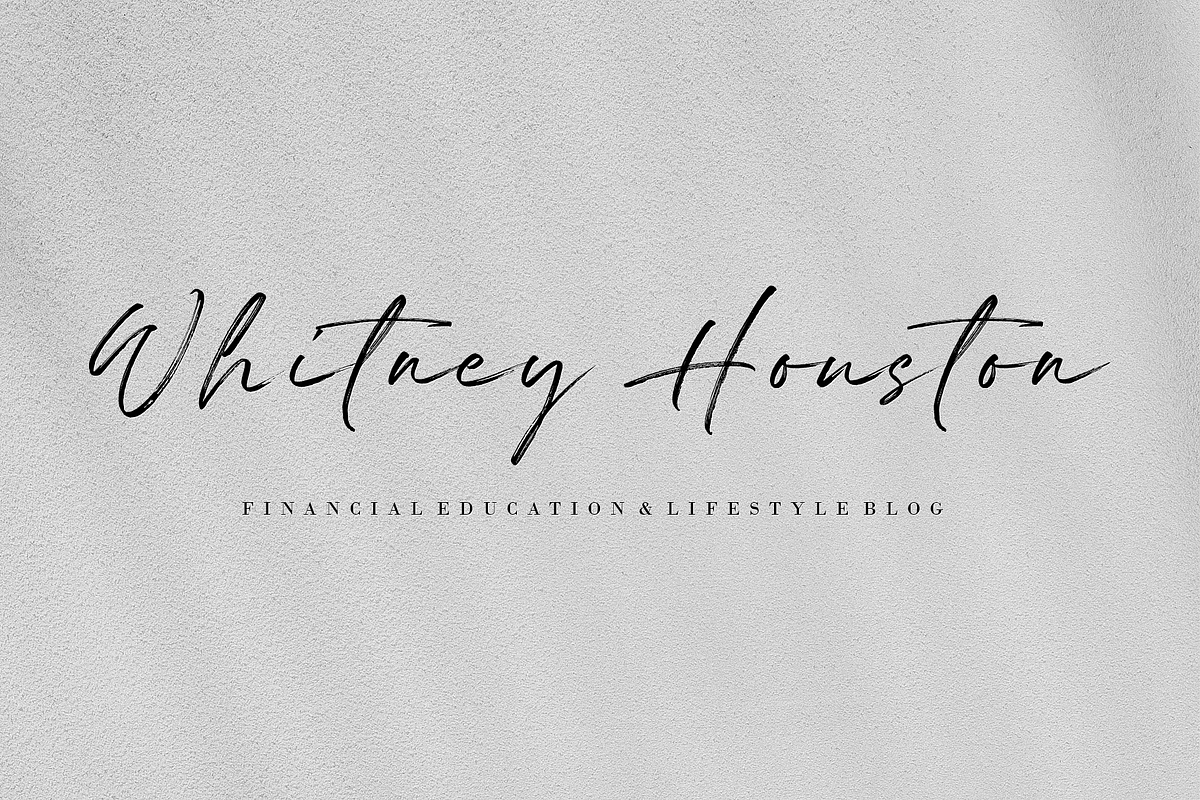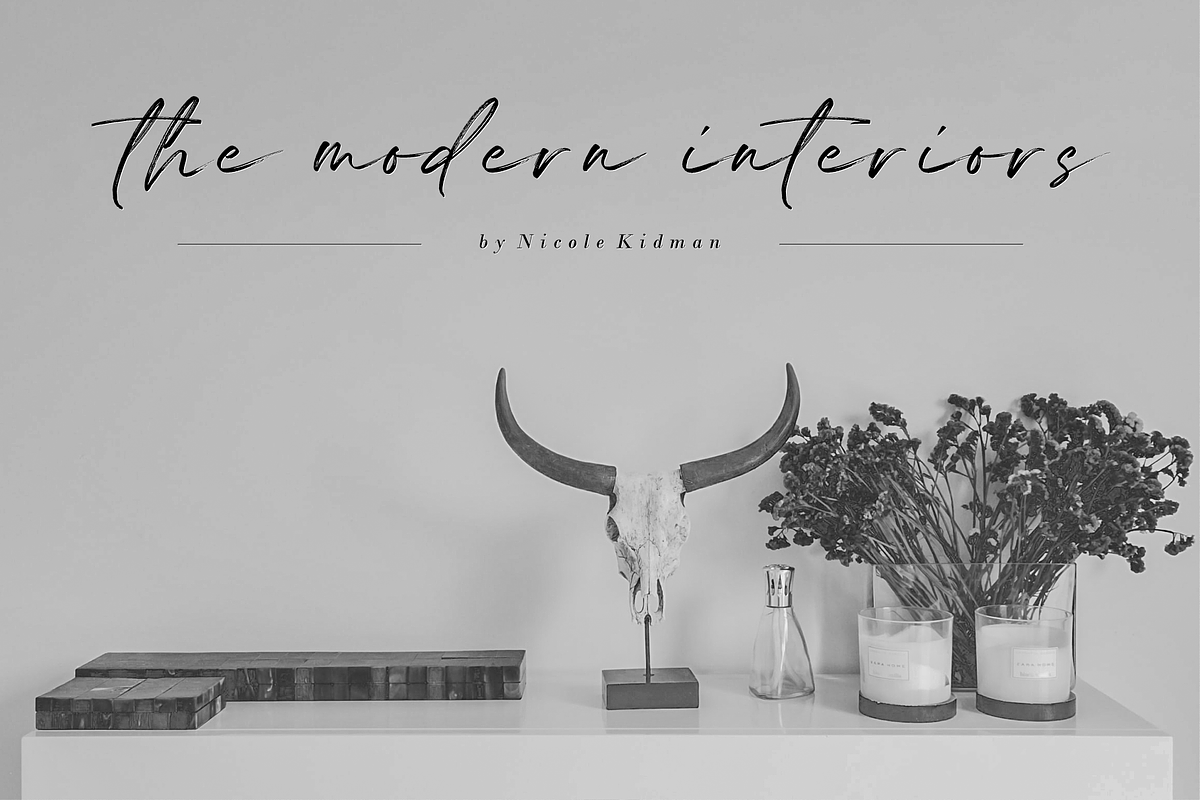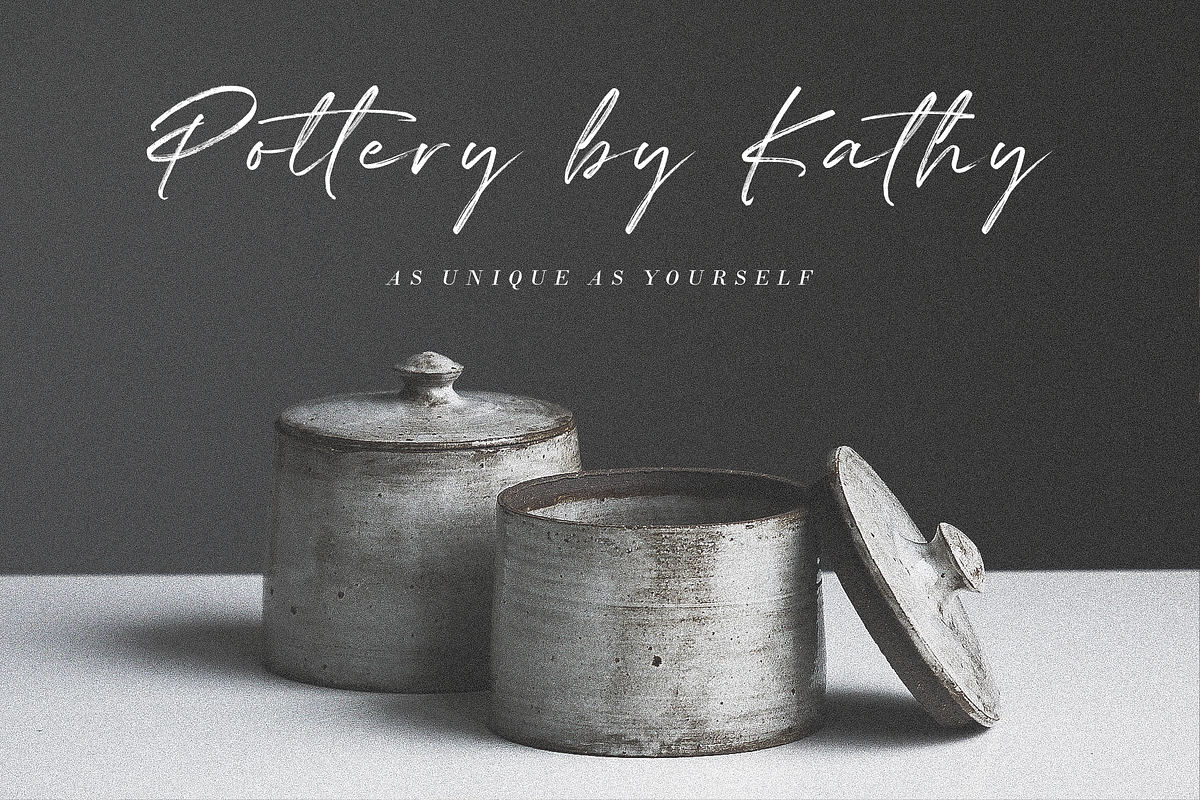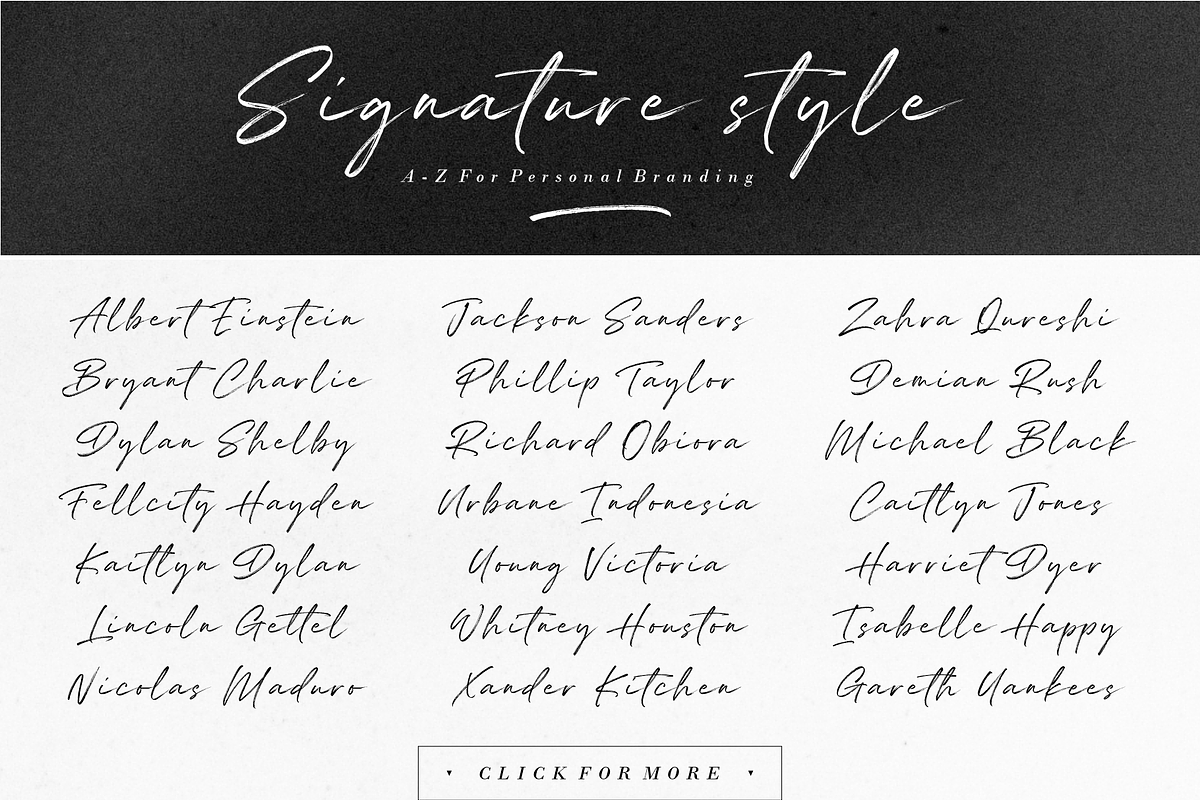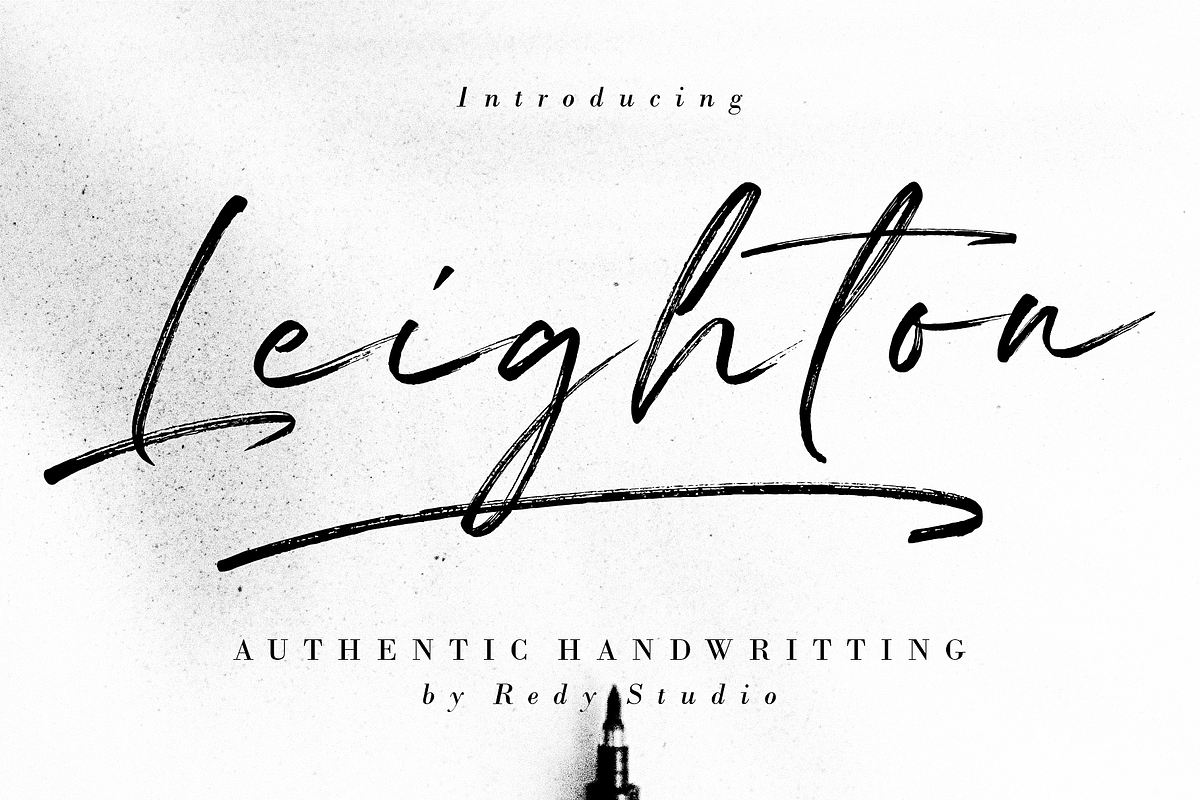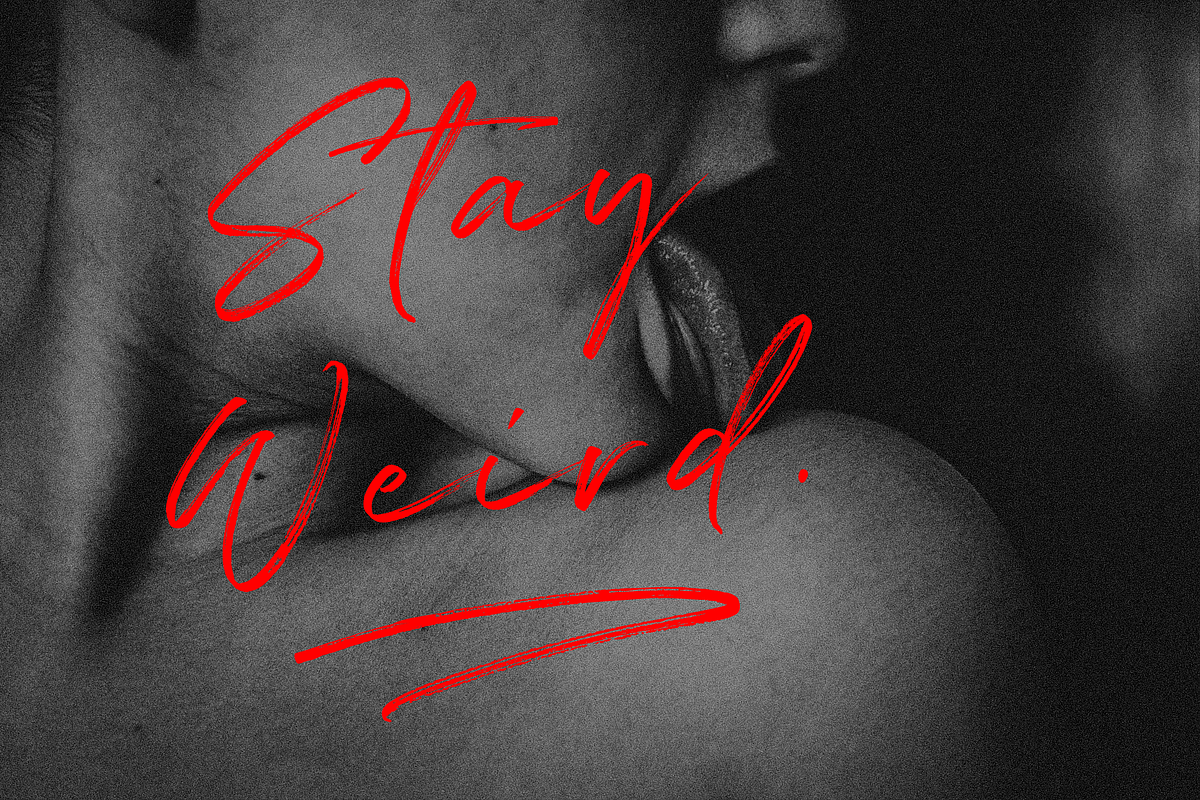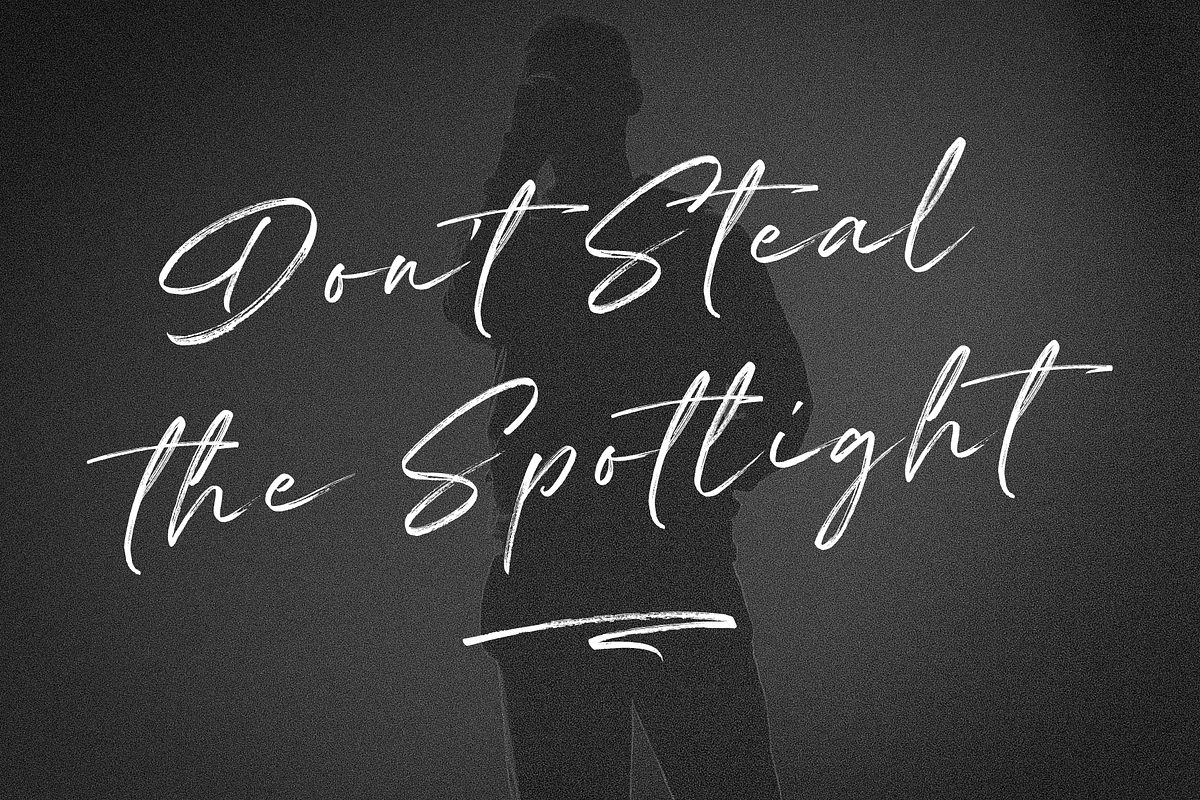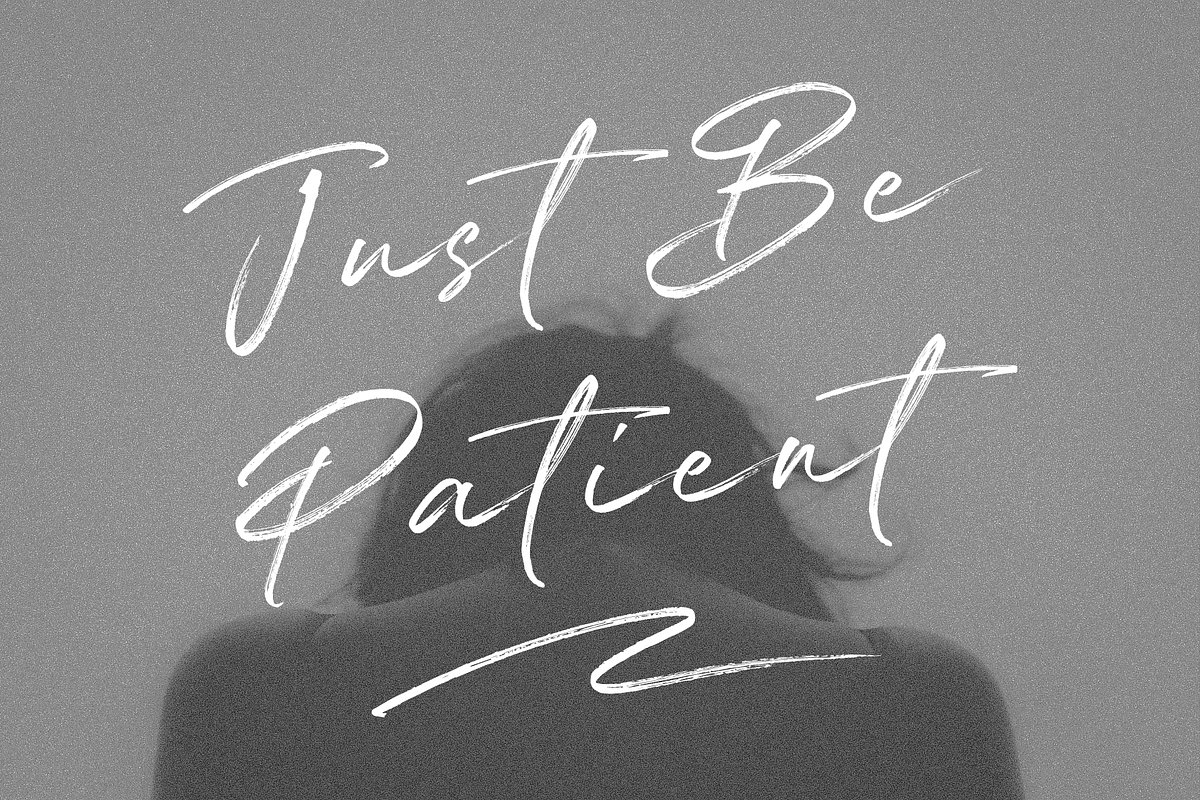
Leighton | authentic brush font
Leighton is an authentic handwriting brush font that has been inspired by some of the most famous sign painters in the past. It’s a handwritten script font with an authentic brush style, a watery and casual feeling that is perfect for your projects such as logos, banners, letterheads, and signatures. Its brush style will catch your attention immediately because it looks very natural, neat, and graphic! Also, this is a great font to use on your packaging design and branding projects.
A full set of upper & lowercase characters
Numbers & punctuation
A full set of upper & lowercase characters (Alternates)
- A full set of upper & lowercase characters
- Numbers & punctuation
- A full set of upper & lowercase characters (Alternates)
- Swashes
- Multilingual symbols